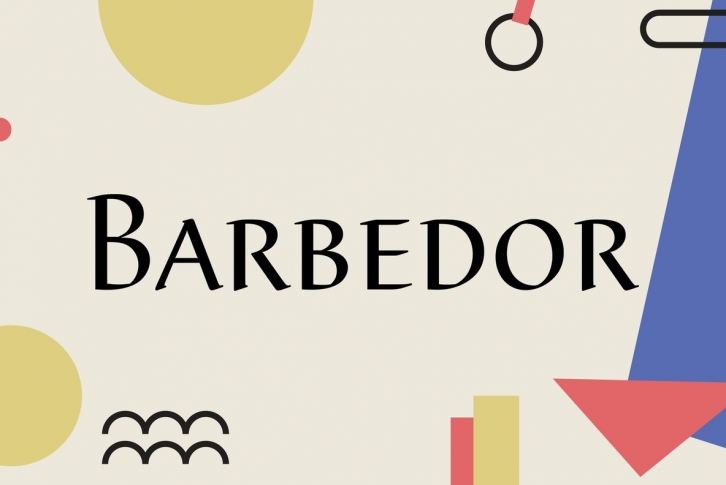
Designed by Hans Eduard Meyer in 1987, Barbedor is an elegant and interesting script font release by URW. Contains language support for West, East, Turkish, Baltic, and Romanian.